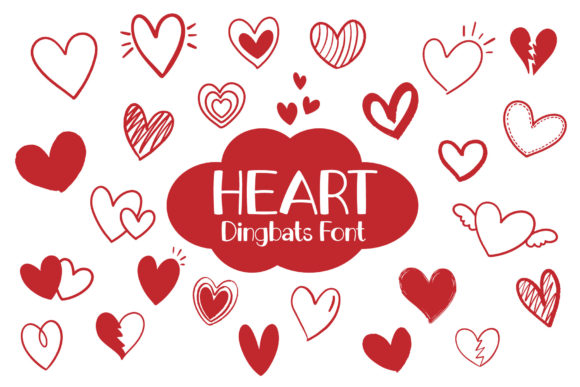
Looking for the best font for doodling? Look no further than Heart Font, a charming dingbats font created by Fox7 that will take your designs to the next level. With Heart, you can add a touch of whimsy and fun to any project, whether it's a blog post, advertisement, invitation, greeting card, planner, photo album, decoration, or anything in between.
This font is a must-have for anyone who wants to add a unique touch to their designs. With its playful and creative designs, Heart is the perfect choice for those who want to stand out from the crowd. The best part? It's incredibly easy to use. Simply add it to your design and watch it come to life!
One of the many great things about Heart is its versatility. It can be used for a variety of projects, making it the perfect addition to any designer's toolkit. Whether you're looking to add a bit of personality to your branding or simply want to create a one-of-a-kind greeting card, Heart is the perfect choice.